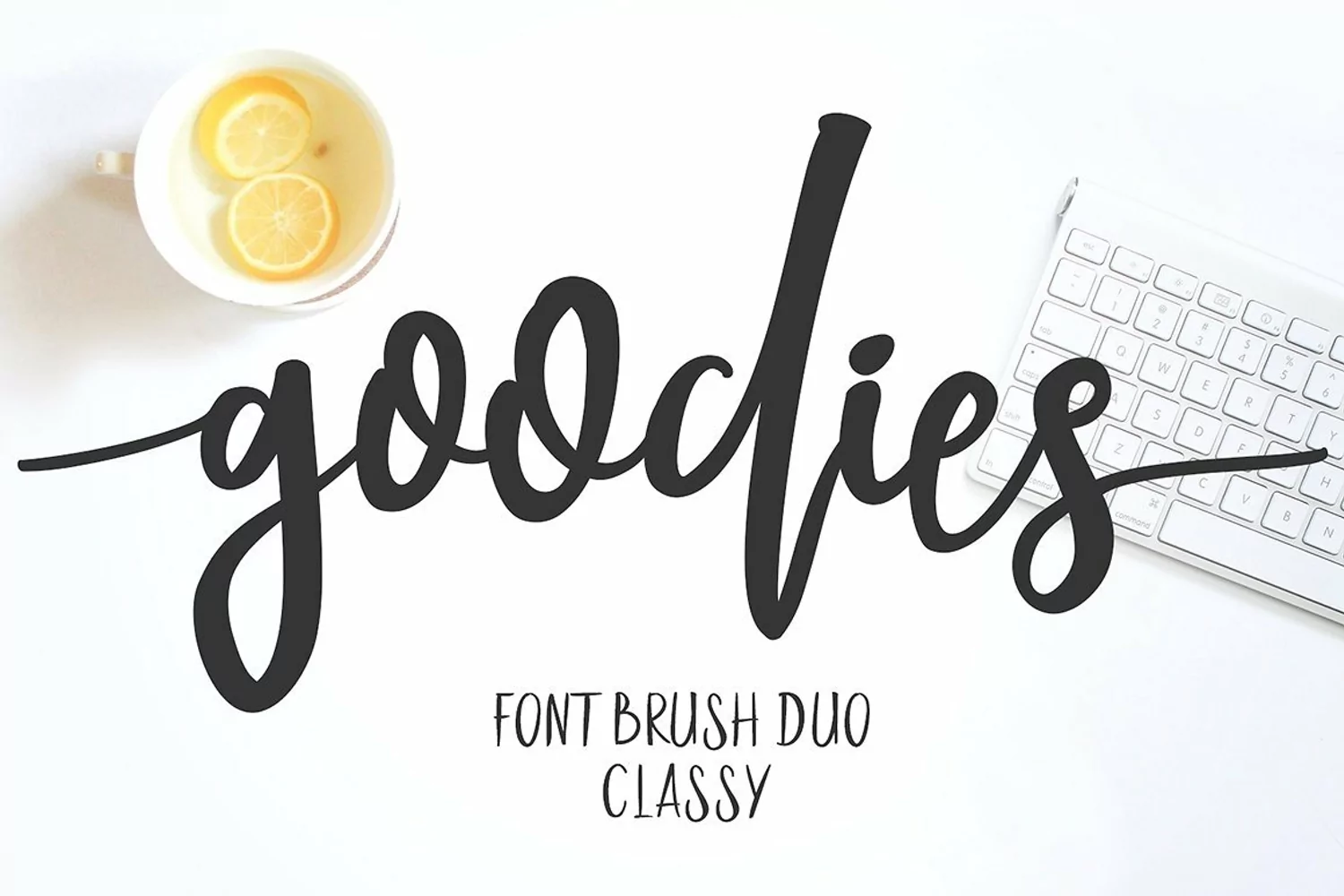
Goodies font is filled with goodies! This brush font is a classy script font with a beautiful hand drawn feel, providing a great contrast between thick and thin strokes. With two options, Goodies regular and Goodies Alternate you can use this great font pair for just about any design or project you want!